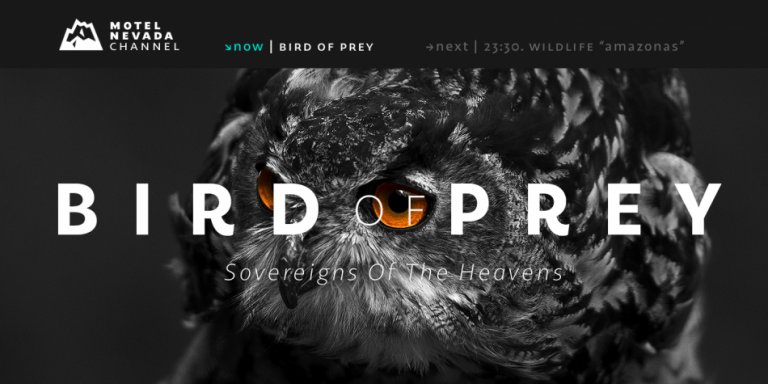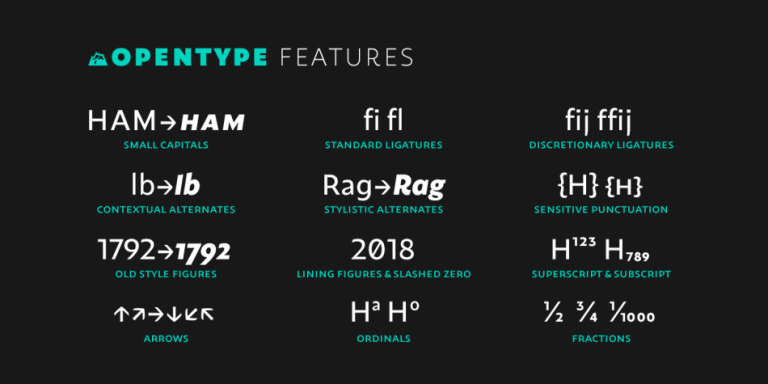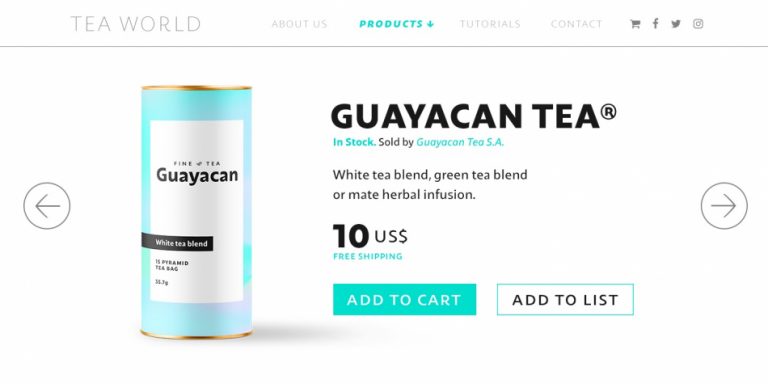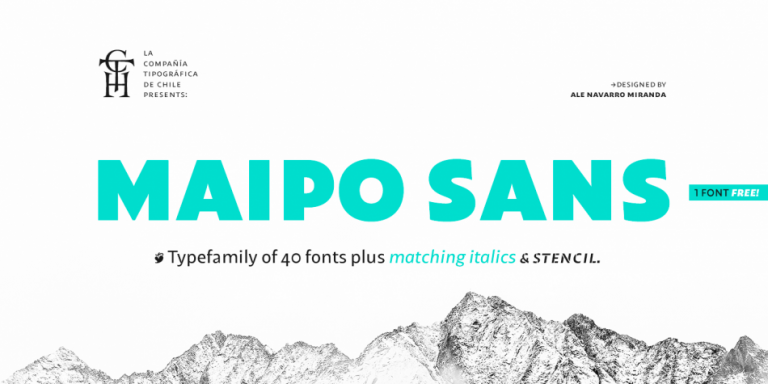
Maipo Sans Font Family
Hi designer! The following is a type family of 40 fonts. Introducing Maipo Sans. It is designed and shared by Ale Navarro, and was published by Compañía Tipográfica De Chile. Maipo Sans is a modern typeface inspired by the mountain landscape of Cajón del Maipo, Chile. Its forms are inspired by the first sans serif European Humanist fonts of the twentieth century along with a touch of reverse contrast. This typeface is specially designed for projects using extensive text blocks and striking ads.